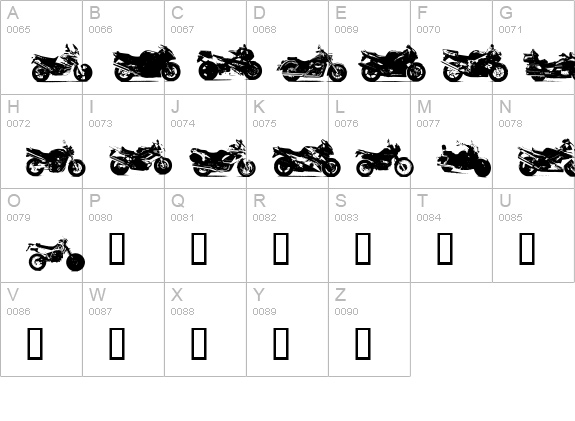
MotorBikez Font Details
Introducing MotorBikez font, a sleek and stylish typeface perfect for adding a touch of edgy flair to your designs. With its bold and modern look, MotorBikez is sure to make a statement and grab attention. This versatile font is ideal for a variety of projects, from branding to posters to product packaging. Best of all, MotorBikez font is completely free to download at FontsMarket.com. So why wait? Add this dynamic font to your collection today and let your creativity soar with MotorBikez!